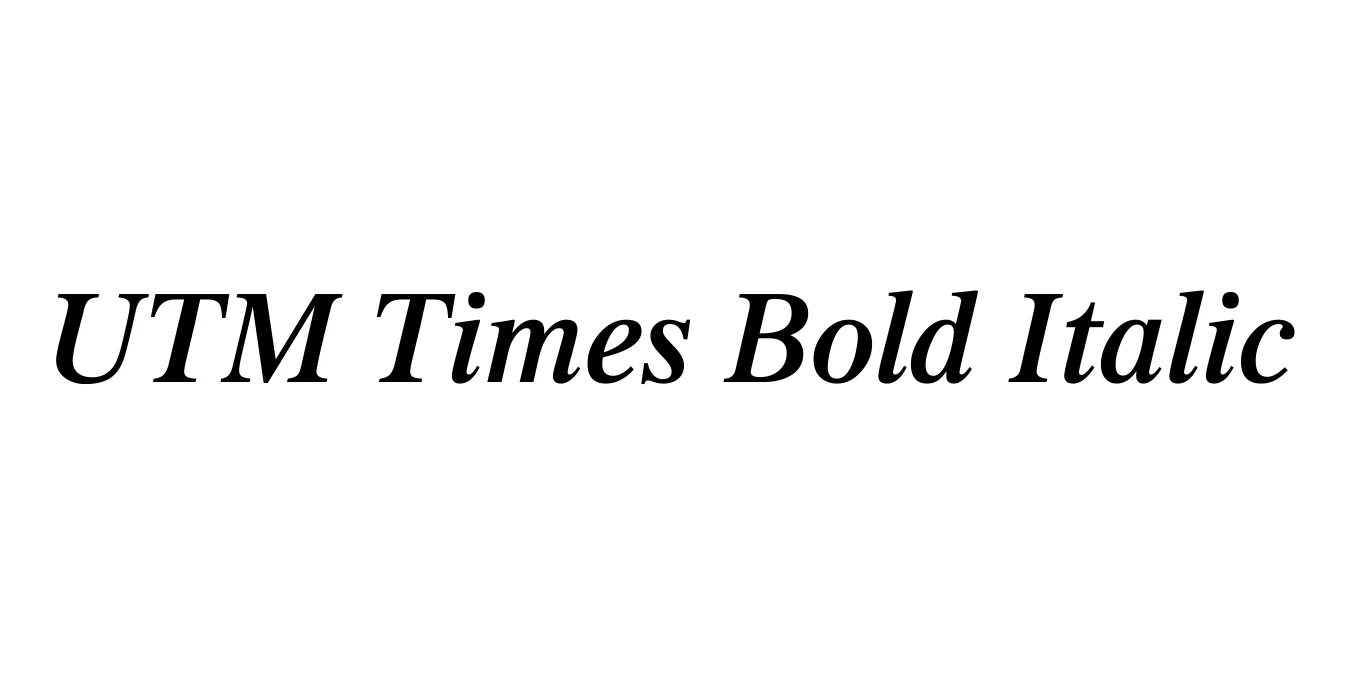
UTM Times Bold Italic
Designed by Vo Van Quang
UTM Times Bold Italic is a stylized version of the classic serif typeface, specifically adapted for the Vietnamese language using Unicode encoding. It belongs to the UTM (Unicode Thien Ma) font family, which gained immense popularity in Vietnam for its reliability and wide range of weights. The Bold Italic variant combines the authority of a heavy stroke with the dynamic movement of slanted letterforms, making it ideal for emphasis within body text or headers.
This font is a staple in Vietnamese graphic design and office work because it ensures perfect compatibility with local accent marks. While it draws inspiration from Times New Roman, the UTM series provides specific refinements for professional printing and digital layout. It is often used in formal documents, books, and newspaper titles where a traditional yet assertive look is required.
UTM Times Bold Italic Best Uses
Perfect for headings and subheadings in magazines and journals.
Ideal for legal or academic papers needing specific emphasis.
Used for pull quotes, introductions, or chapter highlights.
Excellent for newspaper headlines or advertisements requiring a traditional feel.